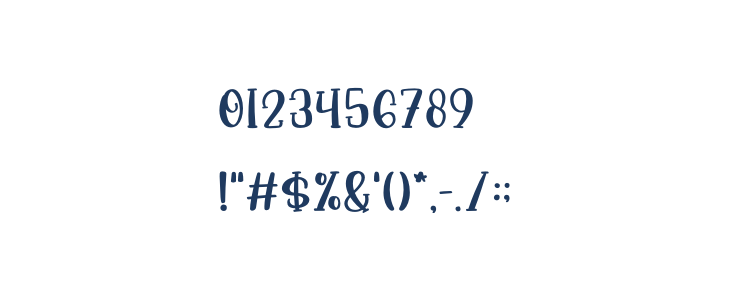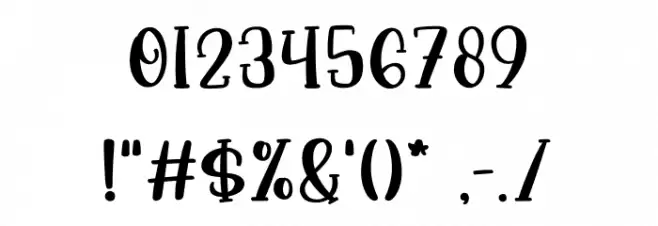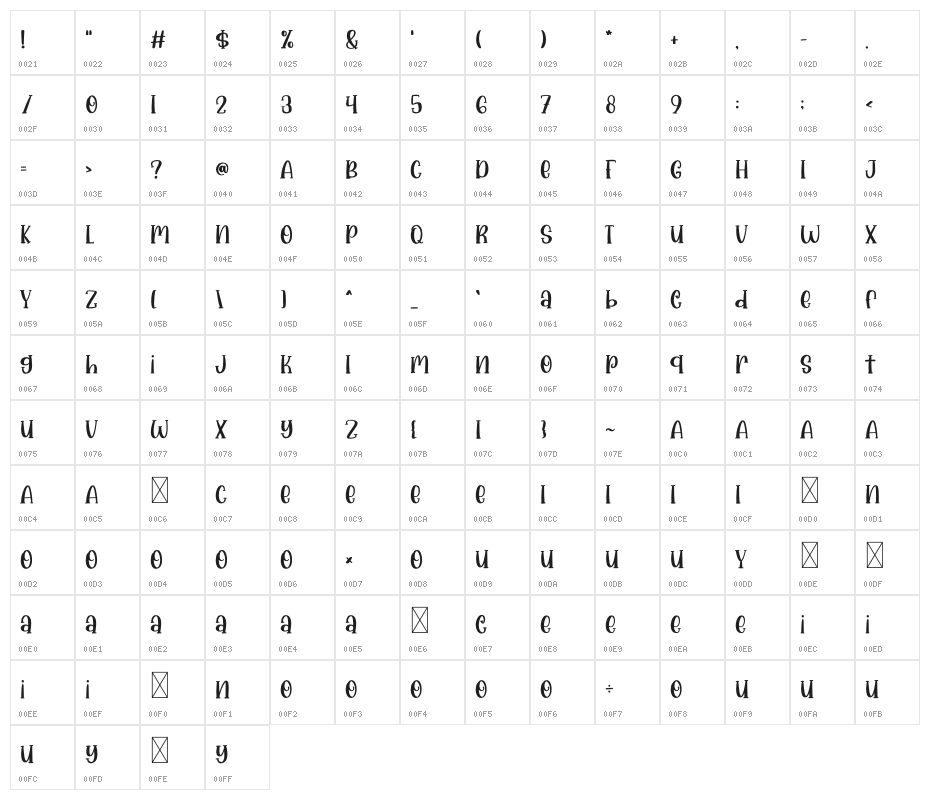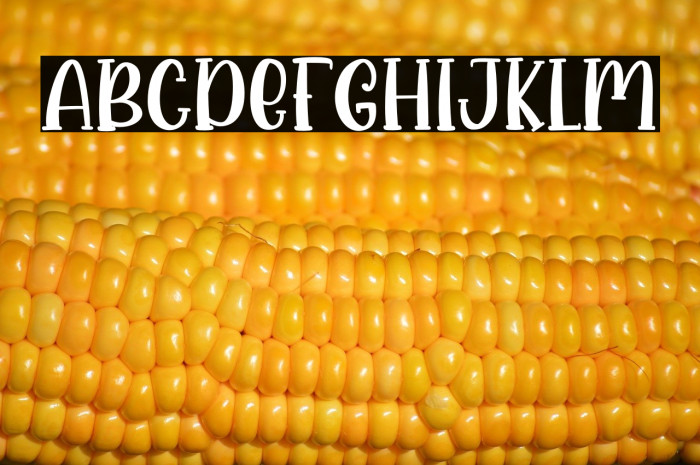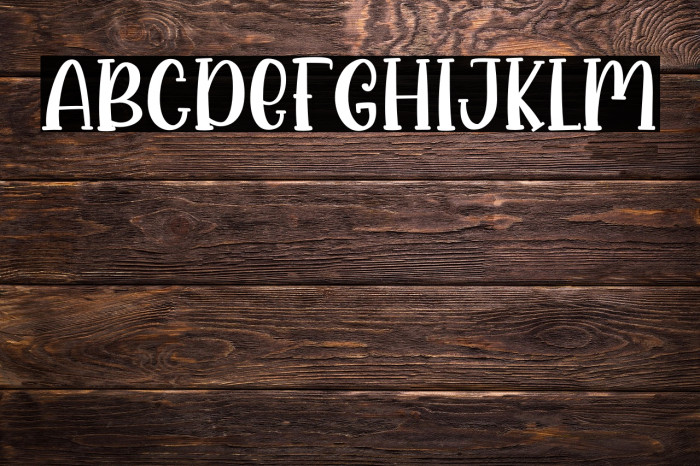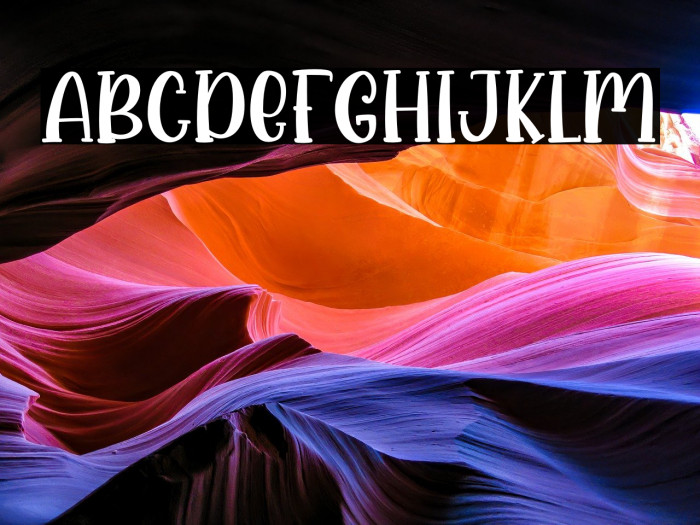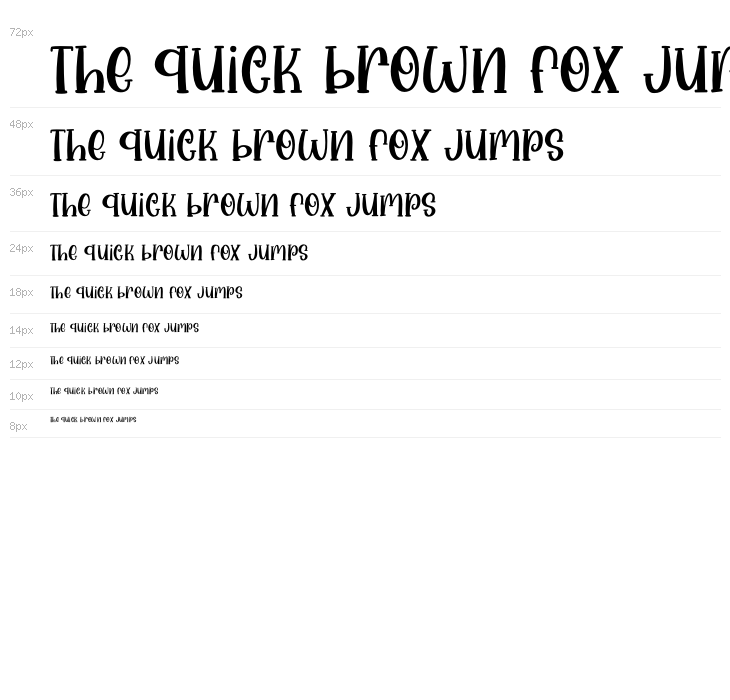
Spooky Party Font
Spooky Party Description
This font features a playful and whimsical design, characterized by its bold and curvy letterforms. The uppercase and lowercase characters exhibit a consistent style with exaggerated curves and a slightly uneven baseline, adding to its quirky and fun appearance. The numbers and special characters maintain this playful aesthetic, making it ideal for projects that require a touch of humor or creativity. The font's overall style is reminiscent of a festive or party atmosphere, perfect for Halloween or other themed events. Its unique design ensures that it stands out, making it suitable for eye-catching headlines or decorative purposes.
BoldYes
ItalicNo
WidthNormal
Character SpacingMonospaced
ContrastMedium
Overall StyleDecorative
Use CaseHeadlines, Logos, Invitations
Proposed ProjectsIdeal for Halloween invitations, party banners, children's book covers, and playful branding.